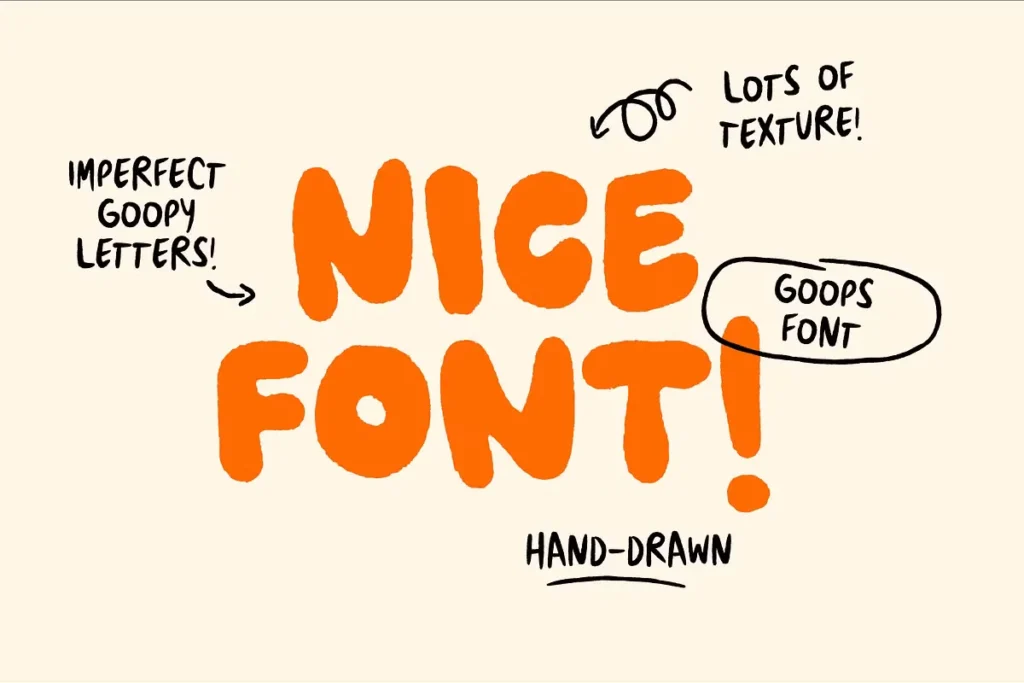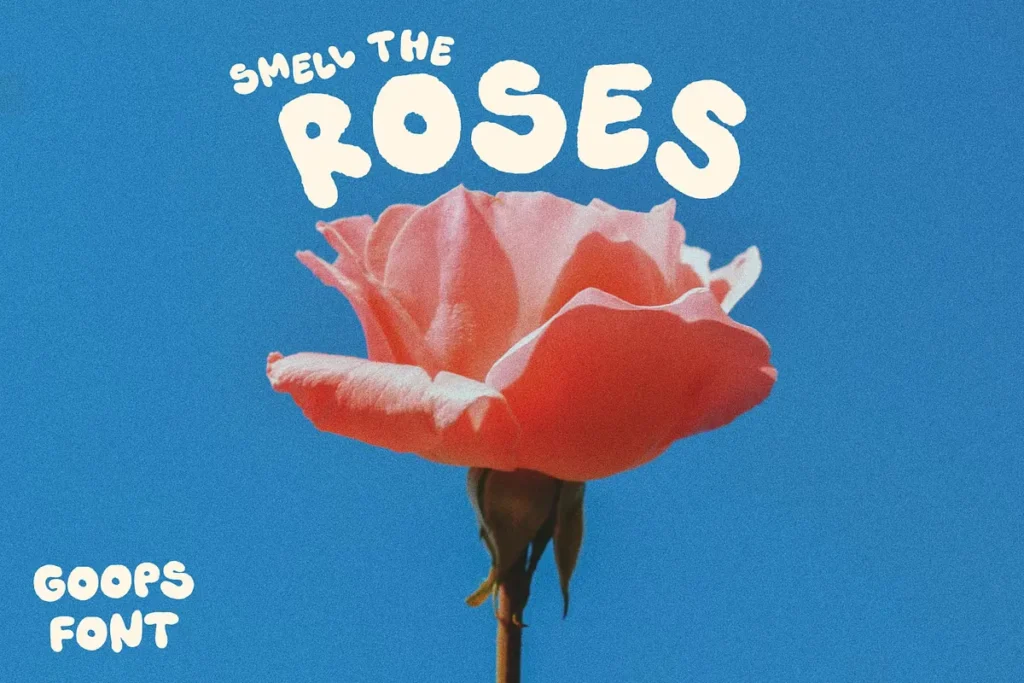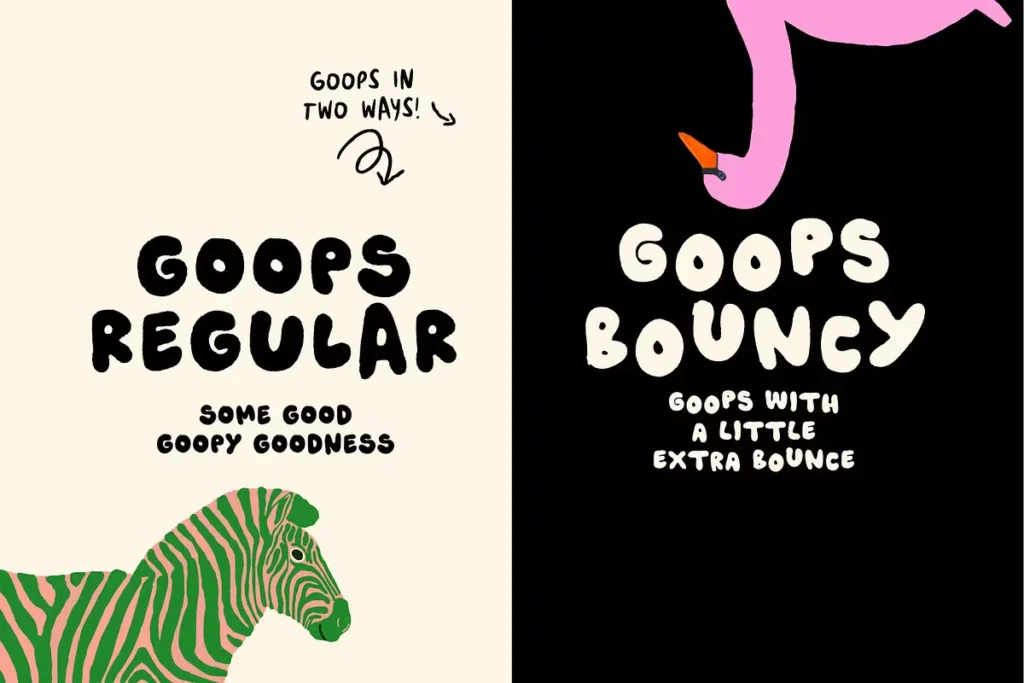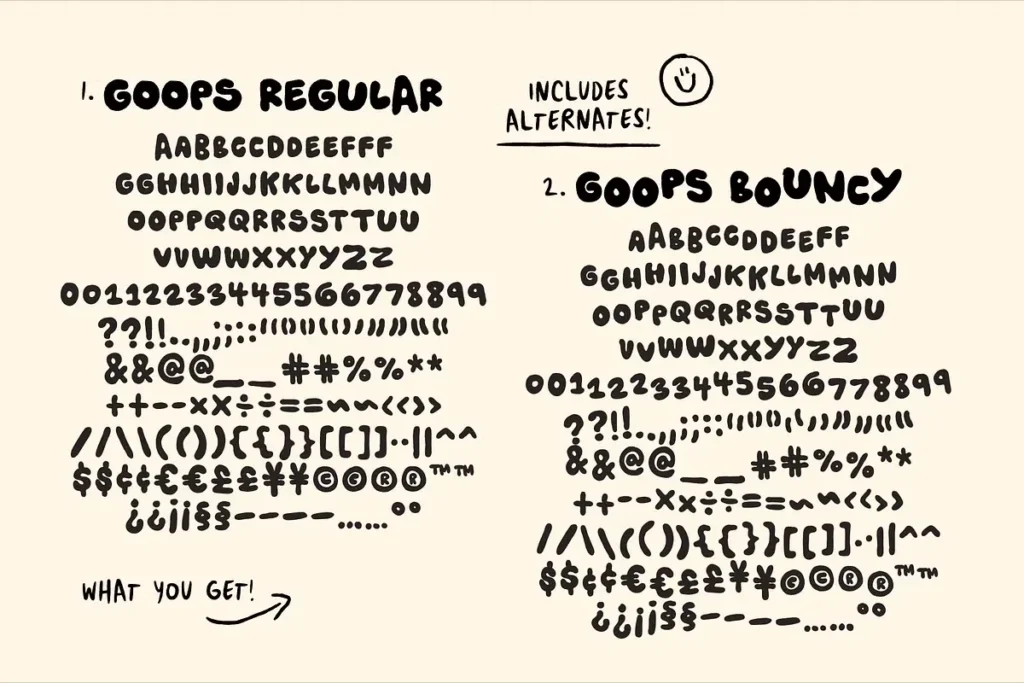
Goops Free Handwriting Bubble Font is a playful and nostalgic typeface inspired by the iconic Y2K design era. Designed with a fun handwritten bubble style, Goops brings personality, creativity, and charm to any project. The font comes in two unique styles—Regular and Bouncy—allowing designers to choose between a clean handwritten look or a more energetic and expressive appearance.
Featuring subtle texture and a delightfully goopy aesthetic, Goops embraces imperfections to create an authentic handmade feel. The font also includes alternate characters, giving you even more flexibility to create custom lettering with a natural hand-drawn touch. Whether you’re working on logos, branding projects, social media graphics, posters, quotes, packaging, stickers, or digital artwork, Goops adds a fun and eye-catching element to your designs.
This font package includes uppercase letters A–Z, numbers, punctuation, symbols, and alternate glyphs to help you create unique compositions with ease. Its retro-inspired yet modern appearance makes it perfect for projects that need a playful, creative, and trendy vibe.
If you’re looking for a bubble font that combines Y2K nostalgia, handmade charm, textured details, and versatile design possibilities, Goops is a fantastic addition to your font collection.
Goops Free Handwriting Bubble Font